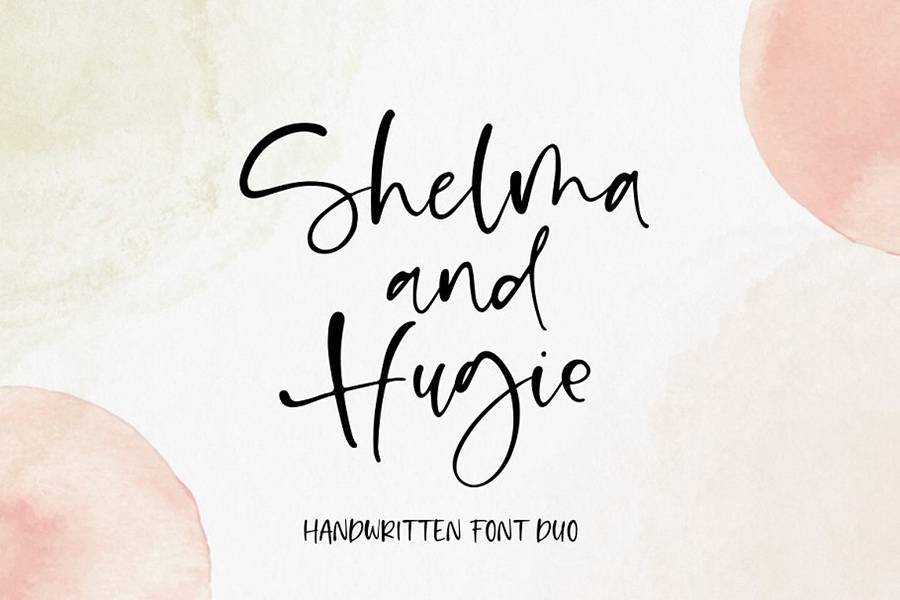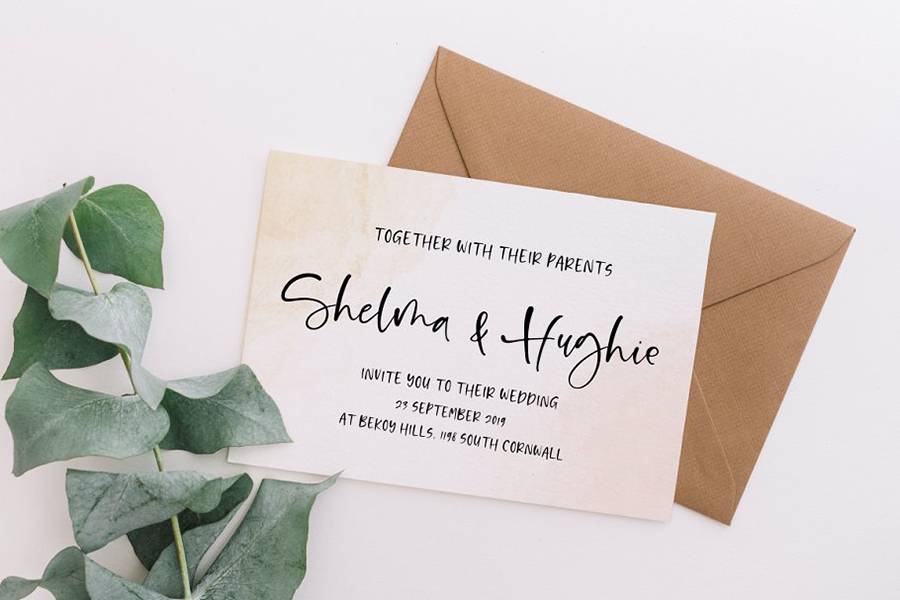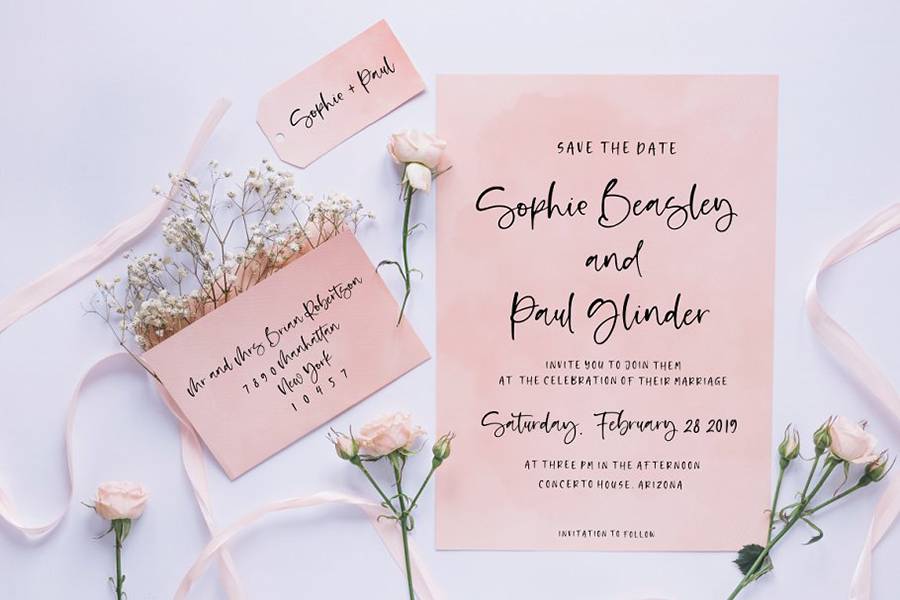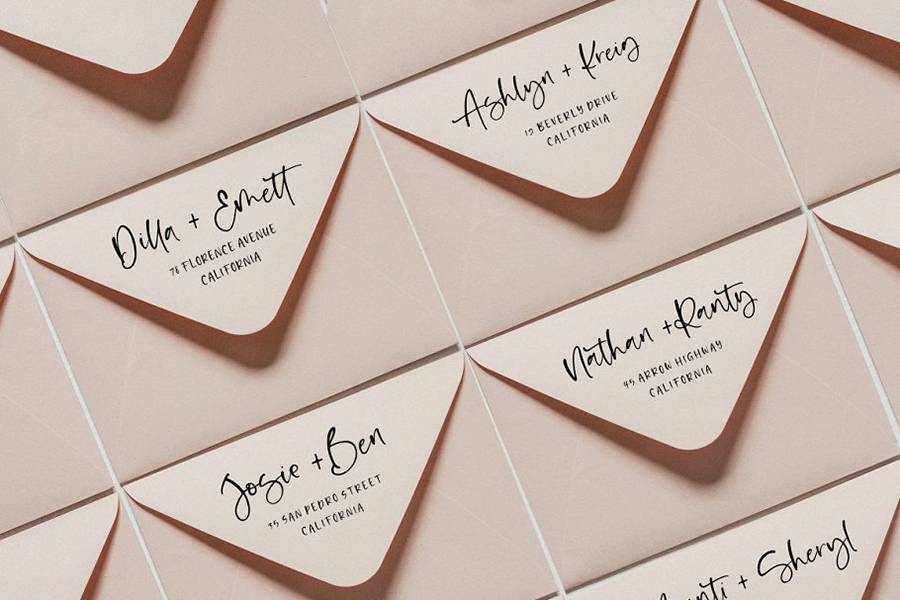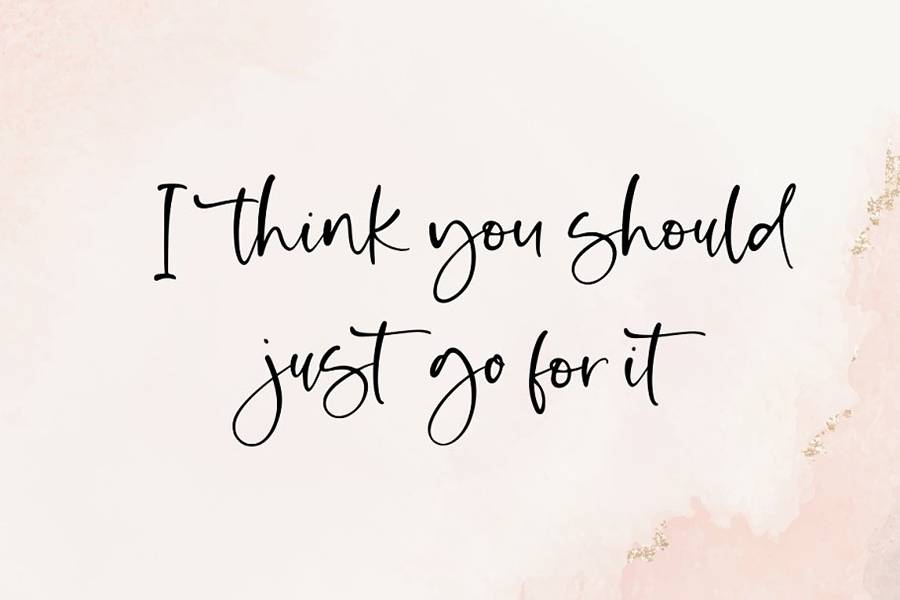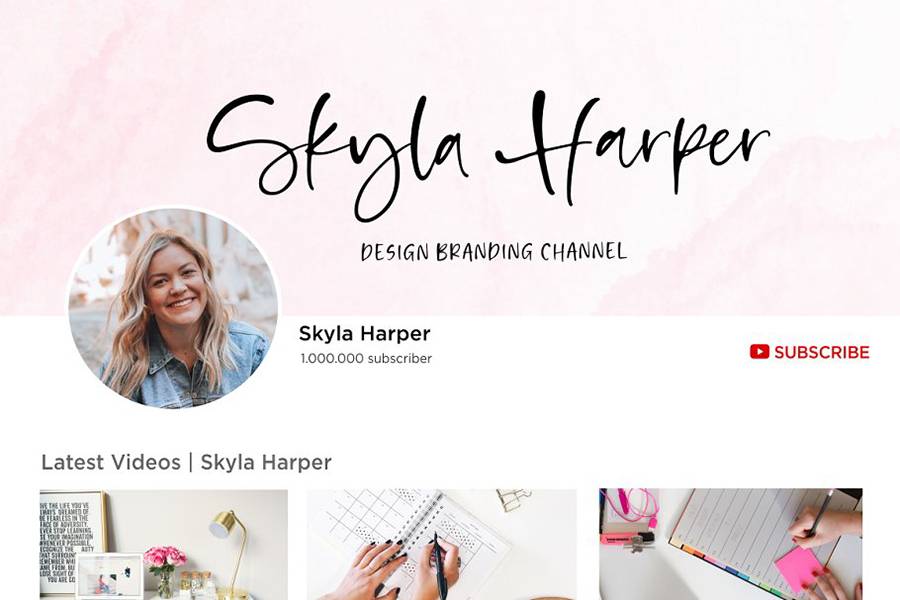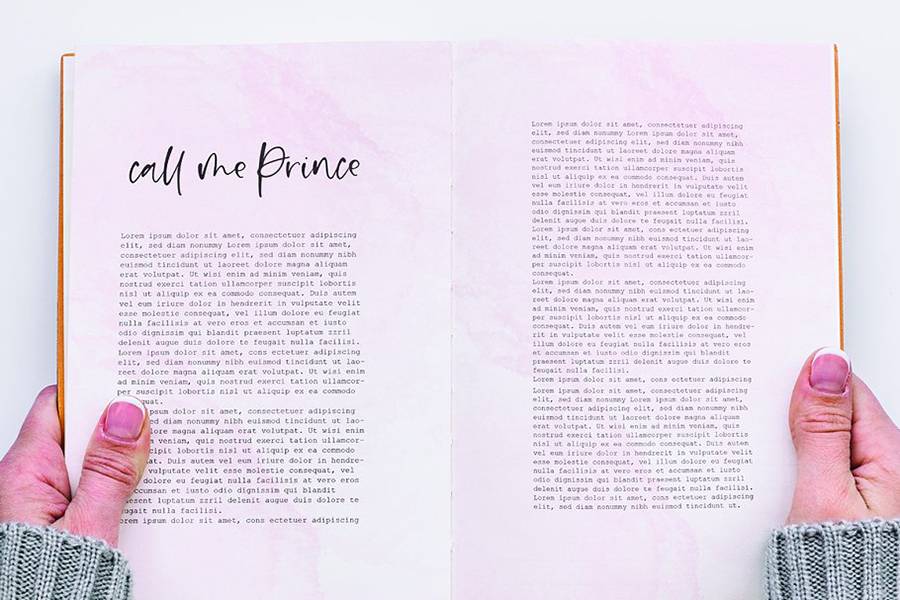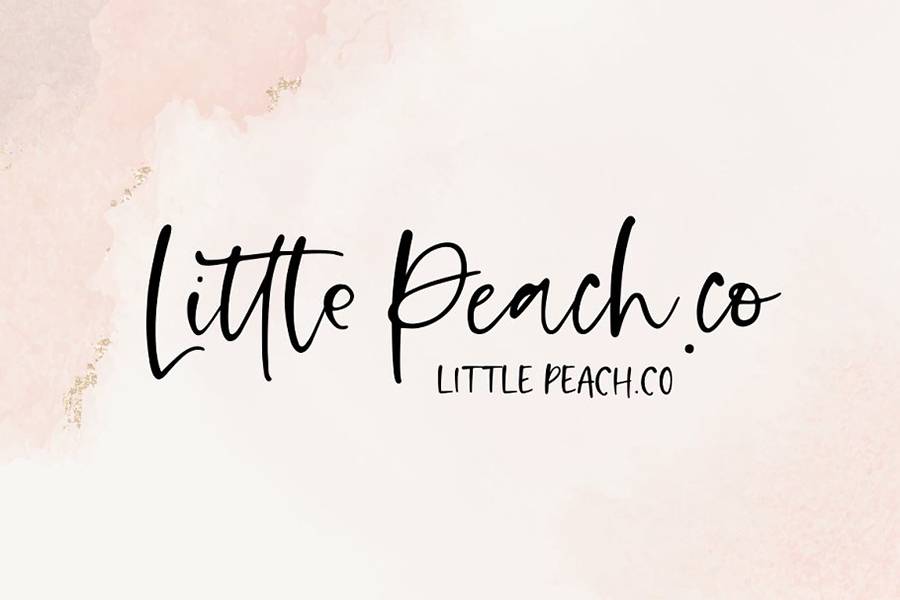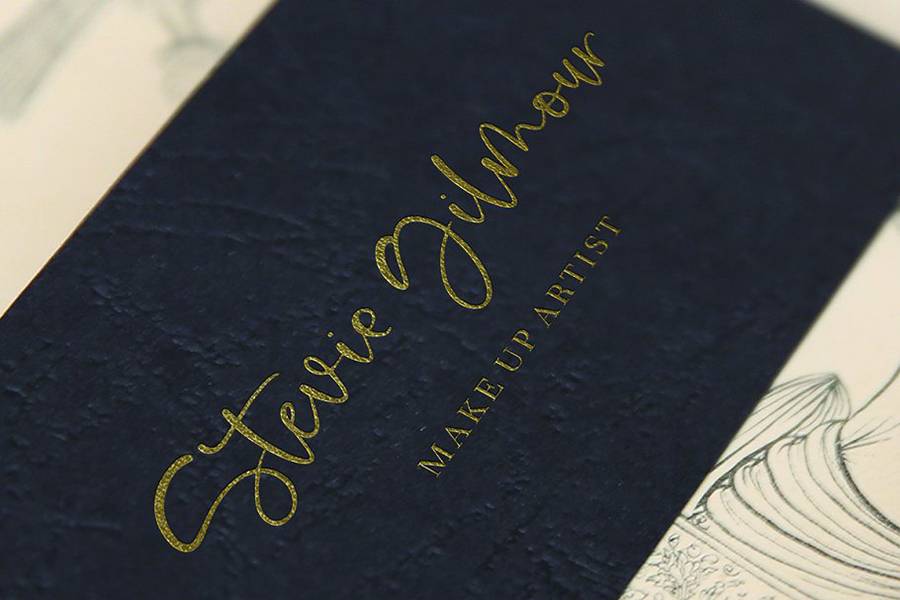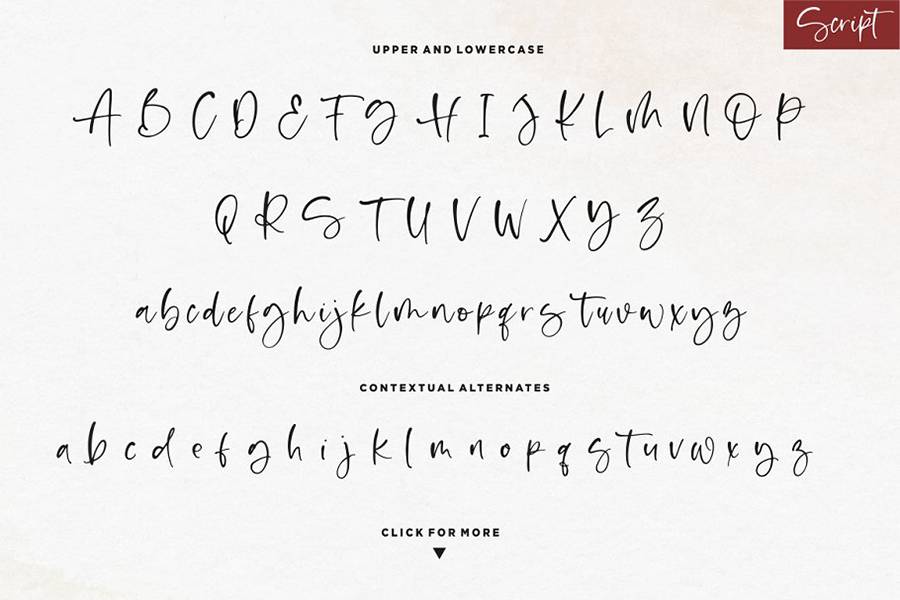
Shelma and Hugie Font Duo is a charming, handwritten script with a casual yet elegant flair, featuring fluid, slightly irregular strokes that convey warmth and personality. Its light weight and airy spacing make it perfect for creative branding, invitations, and lifestyle projects looking to add a personal, handcrafted touch. This duo works well for headlines, logos, and artistic designs where a friendly, modern, and approachable feel is desired.
Shelma and Hugie Font Duo
About Shelma and Hugie Font Duo
| Font family | Shelma and Hugie Font Duo |
| Designer | Muhamad Yusron Billah |